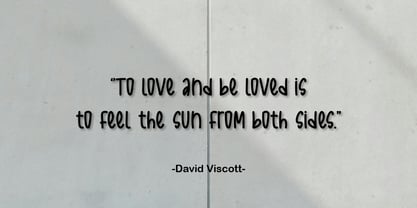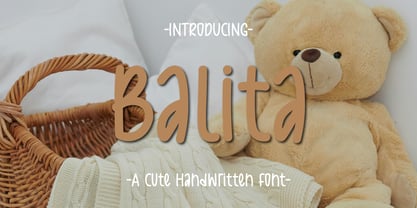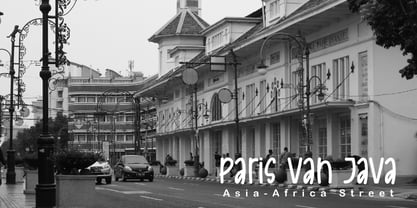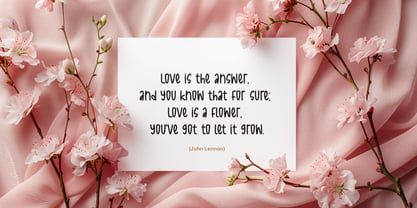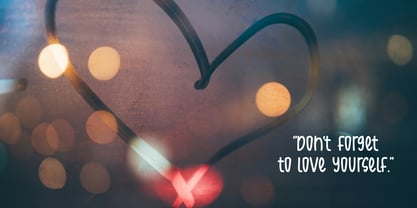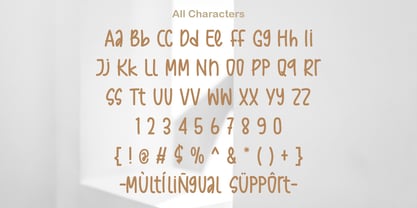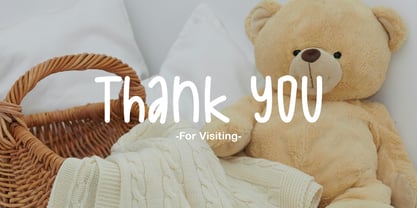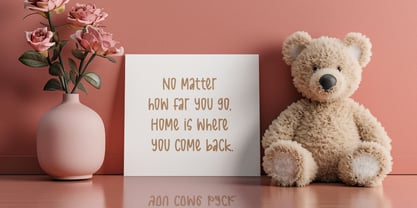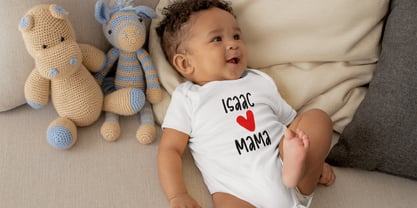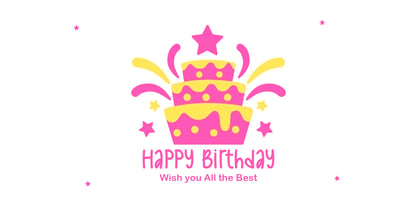
The Balita Font Family was designed by Gugun Gunawan and published by Patlot Digital Studio. Balita contains 1 styles. More about this family
Balita is a charming, one-of-a-kind, handwritten font. Its playful strokes make it a perfect fit for countless creative applications – from enchanting children’s birthday invitations to vibrant book covers ripe for young explorers. Picture this beautiful typeface adding a touch of whimsy to quotes on cozy merchandise or ushering in a new academic year with an uplifting ‘Back to School’ message. It’s hard to resist falling head over heels for Balita’s delightful allure. Plus, with multi-language support, this darling font truly speaks to everyone. Discover the extraordinary charm of Balita today.
Balita